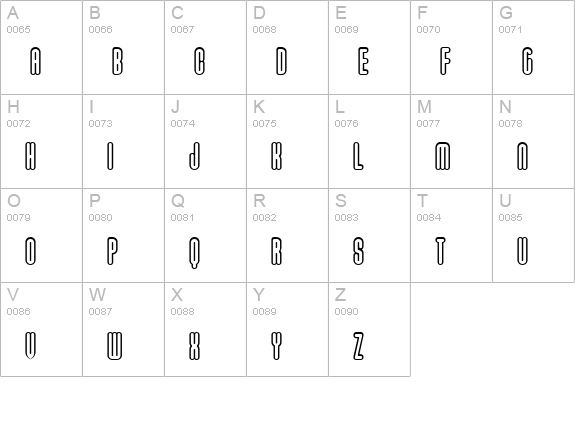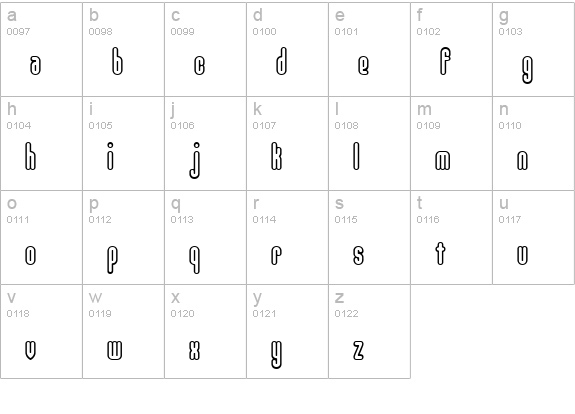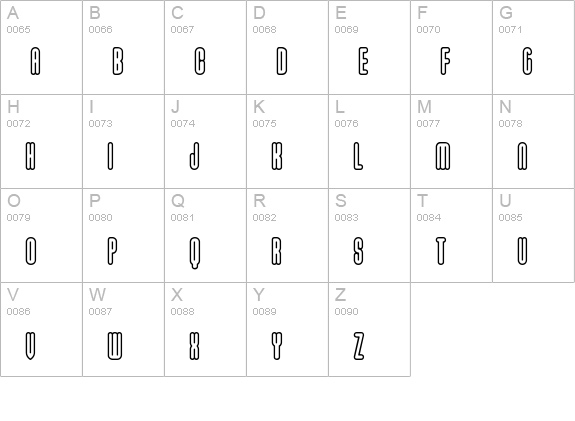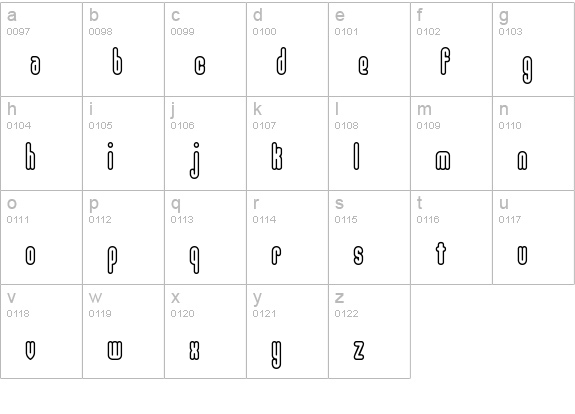
Unanimous -BRK- font is a stunning display typeface that effortlessly combines elegance with modernity. Its sleek and sophisticated design makes it perfect for a wide range of creative projects, from branding and advertising to book covers and web designs. With its clean lines and sharp edges, Unanimous -BRK- font commands attention and exudes a sense of authority and professionalism. Its versatility allows it to be used across various mediums, ensuring your message is conveyed with clarity and impact. One of the standout features of Unanimous -BRK- font is that it is available for free download at FontsMarket.com. This means that you can easily access and incorporate this stunning font into your projects without any cost. Whether you are a professional designer or a hobbyist, the availability of Unanimous -BRK- font for free allows you to add a touch of sophistication and style to your work effortlessly. Unanimous -BRK- font offers an extensive character set, including uppercase and lowercase letters, numerals, punctuation marks, and special characters. This ensures that you have all the tools you need to create visually appealing and engaging designs. Additionally, the font's excellent readability ensures that your audience can easily absorb your message without any hindrance. So, if you are looking for a free font that combines elegance, modernity, and versatility, look no further than Unanimous -BRK- font. Download it today from FontsMarket.com and unlock a world of possibilities for your creative endeavors.